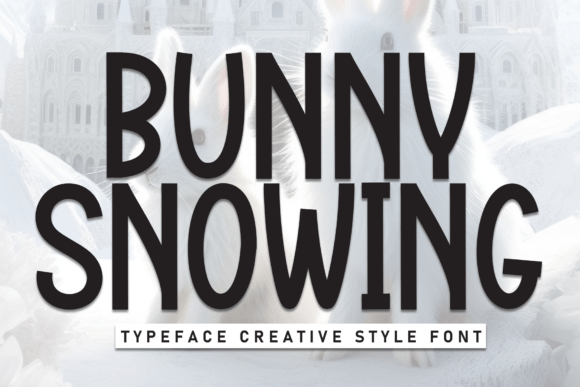
Bunny Snowing Font: A Playful and Creative Font for Your Designs
Are you looking for a font that can add a touch of fun and creativity to your designs? Look no further than the Bunny Snowing Font! This playful font is perfect for kids’ projects, party invites, logos, packaging, and anything that calls for a lighthearted and cheerful vibe. In this article, we’ll take a closer look at the Bunny Snowing Font and explore its features, benefits, and uses.
What is Bunny Snowing Font?
Bunny Snowing Font is a hand-drawn font that features bouncy letterforms and a charming, whimsical design. The font is designed to evoke a sense of joy and imagination, making it perfect for projects that require a playful and creative touch. With its unique and quirky design, Bunny Snowing Font is sure to stand out from the crowd and add a touch of personality to your designs.
Features of Bunny Snowing Font
Bunny Snowing Font has several features that make it a great choice for designers. Some of its key features include:
- Hand-drawn design: Each letterform is carefully hand-drawn, giving the font a unique and personal touch.
- Bouncy letterforms: The font features bouncy letterforms that add a playful and energetic feel to your designs.
- Whimsical design: The font has a whimsical design that is perfect for projects that require a touch of imagination and creativity.
- Lighthearted and cheerful vibe: The font has a lighthearted and cheerful vibe that is perfect for kids’ projects, party invites, and other designs that require a fun and playful touch.
Benefits of Using Bunny Snowing Font
There are several benefits to using Bunny Snowing Font in your designs. Some of the benefits include:
- Adds a touch of fun and creativity: The font adds a touch of fun and creativity to your designs, making them more engaging and appealing.
- Perfect for kids’ projects: The font is perfect for kids’ projects, such as children’s books, educational materials, and kids’ party invites.
- Great for party invites and logos: The font is also great for party invites, logos, and packaging, adding a touch of whimsy and playfulness to your designs.
- Easy to read: Despite its playful design, the font is easy to read, making it perfect for use in a variety of projects.
Uses of Bunny Snowing Font
Bunny Snowing Font can be used in a variety of projects, including:
- Kids’ projects: The font is perfect for kids’ projects, such as children’s books, educational materials, and kids’ party invites.
- Party invites: The font is great for party invites, adding a touch of whimsy and playfulness to your designs.
- Logos and branding: The font can be used to create unique and memorable logos and branding materials.
- Packaging: The font is perfect for packaging designs, adding a touch of fun and creativity to your products.
- Social media graphics: The font can be used to create engaging and playful social media graphics.
Tips for Using Bunny Snowing Font
Here are some tips for using Bunny Snowing Font in your designs:
- Use it sparingly: While the font is playful and fun, it can be overwhelming if used too much. Use it sparingly to add a touch of whimsy to your designs.
- Pair it with other fonts: The font pairs well with other fonts, such as serif and sans-serif fonts. Experiment with different font combinations to find the perfect look for your design.
- Experiment with colors: The font looks great in a variety of colors, so experiment with different colors to find the perfect look for your design.
- Have fun: The most important thing is to have fun with the font! Experiment with different designs and ideas to create something truly unique and creative.
Bunny Snowing Font is a playful and creative font that is perfect for adding a touch of fun and imagination to your designs. With its hand-drawn design, bouncy letterforms, and whimsical charm, it’s perfect for kids’ projects, party invites, logos, packaging, and anything that calls for a lighthearted and cheerful vibe. Whether you’re a designer, artist, or DIY enthusiast, Bunny Snowing Font is a great choice for your next project.